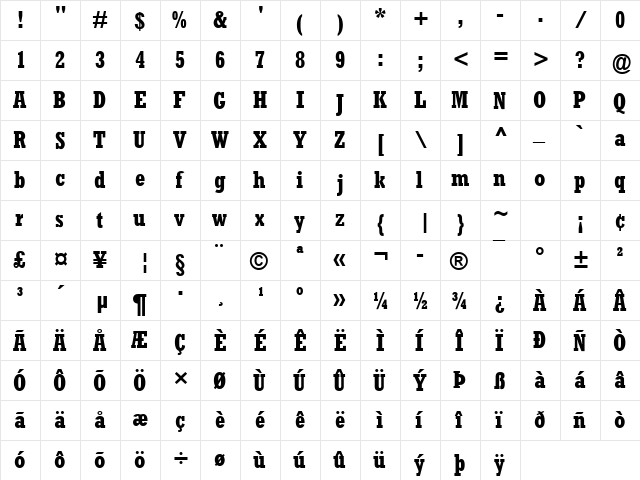
Rockwell MT Condensed Bold
| Foundry | Agfa Monotype Corporation |
Design Context for Rockwell MT Condensed Typeface
Rockwell MT Condensed offers clean, dependable letterforms without strong stylistic allegiance, making it a practical choice for designers who need flexibility. Its bold stroke weight gives it real presence on the page. The condensed width makes it efficient for tight spaces without sacrificing legibility.